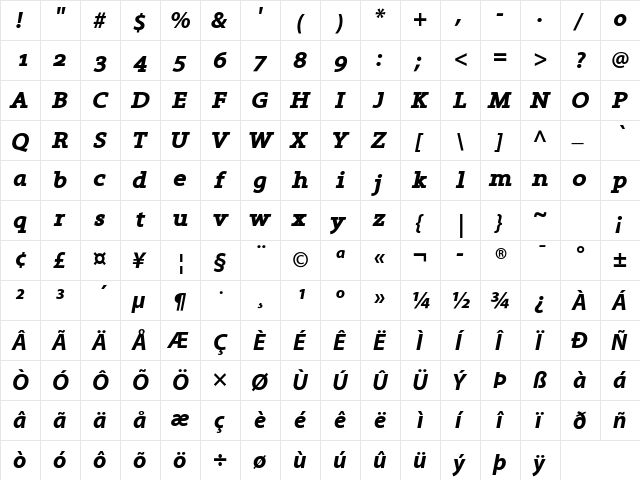
Grandesign Neue Serif Bold Italic Font Preview
Design Context for Grandesign Neue Serif Typeface
Grandesign Neue Serif carries the refined structure of traditional serif typography, with bracketed terminals and considered proportions that communicate credibility and craft. Its italic angle brings a sense of urgency and motion to the letterforms. The heavy weight commands attention and anchors typographic hierarchies.
Pro Tip: Set Grandesign Neue Serif with slightly loose tracking in headlines to let each letterform's detail read clearly at display sizes.